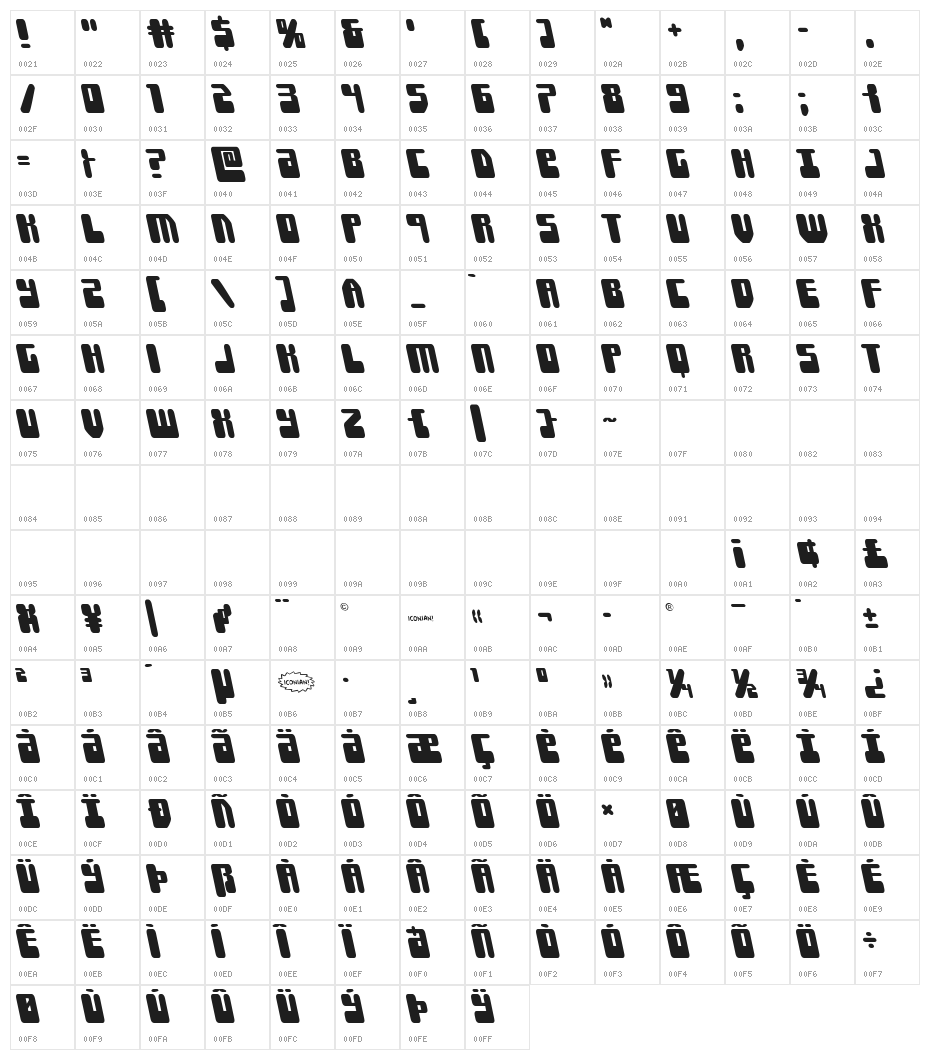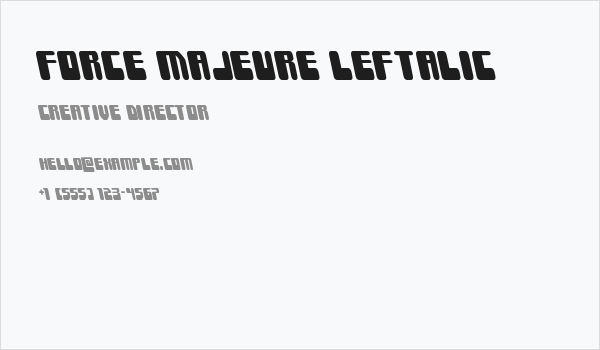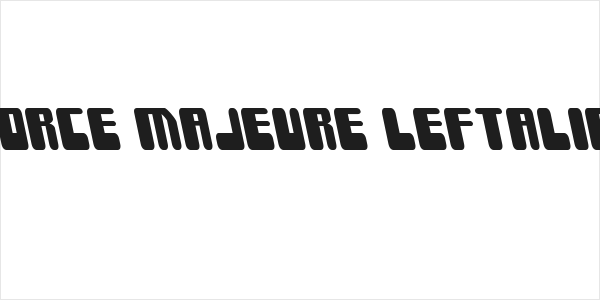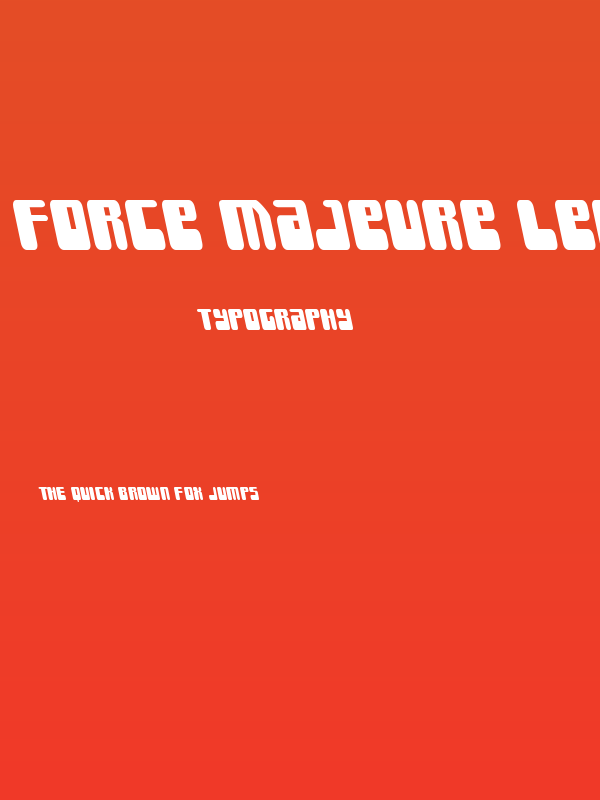
Force Majeure Leftalic Font
Force Majeure Leftalic Description
This font features a bold and impactful design with a distinct leftward slant, giving it a dynamic and forward-moving appearance. The characters are blocky and robust, with a strong geometric influence that creates a sense of stability and strength. The uppercase and lowercase letters maintain a consistent style, with rounded edges that soften the overall look. The numbers and special characters are equally bold, ensuring uniformity across all elements. This font's unique style makes it stand out, ideal for projects that require a strong visual presence.